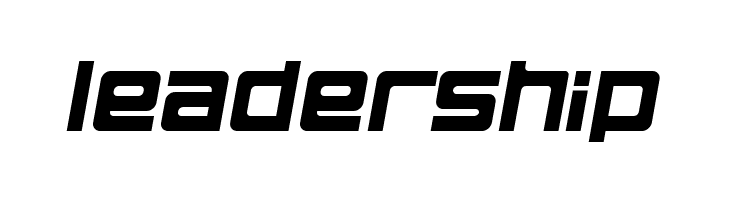
Vampiro G Font
- Font: Vampiro G
( Font by Ben Nathan - www.hafontia.com )
A bold, modern font with geometric, angular characters and a dynamic slant.